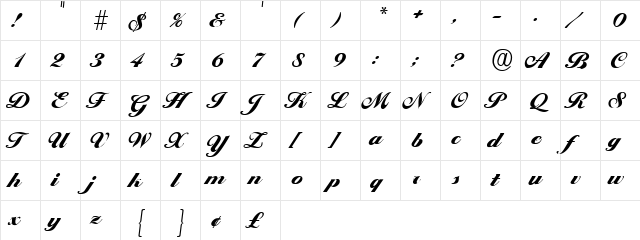
Hispid Normal
Design Context for Hispid Typeface
Hispid is a composed and adaptable typeface that performs quietly and consistently across a wide range of design contexts.